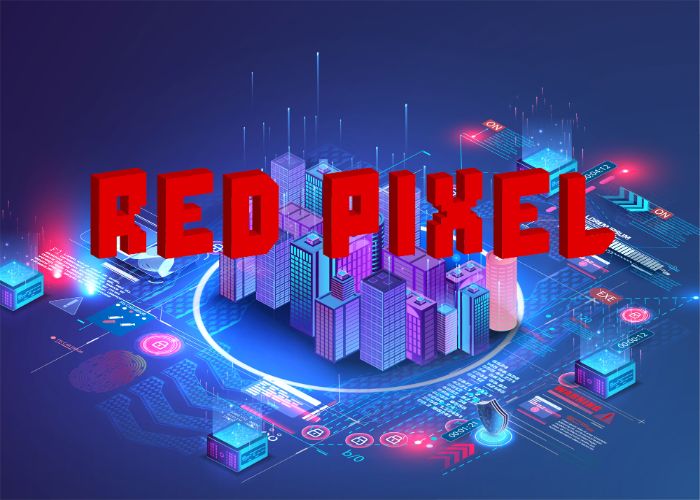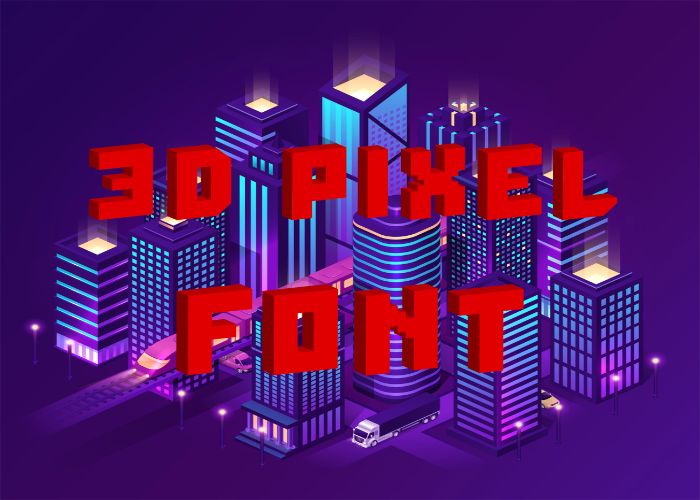
Red Pixel is 3D SVG free color pixel font. This freebie is a blocky futuristic gaming font with a powerful, and strong sharp corners.
This font will emphasize the spirit of the racer within you.
You use this freebie to create banners, posters, apparels and mugs.